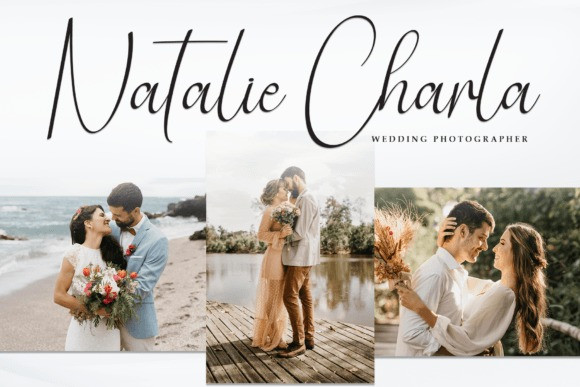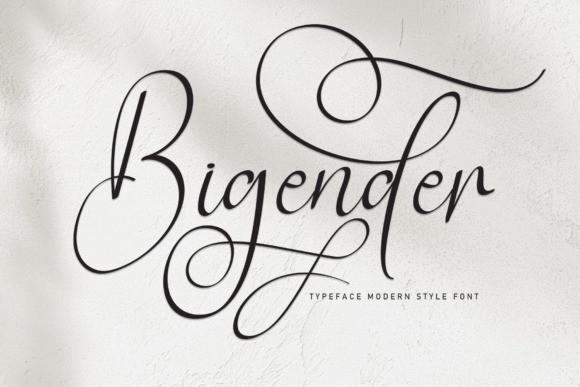
Bigender Handwriting Font
Bigender Handwriting Font is a sweet and delicate handwritten font. Dainty and joyful, this font will be ideal for writing wedding invitations, cards or any other design that may need a romantic, personalized touch